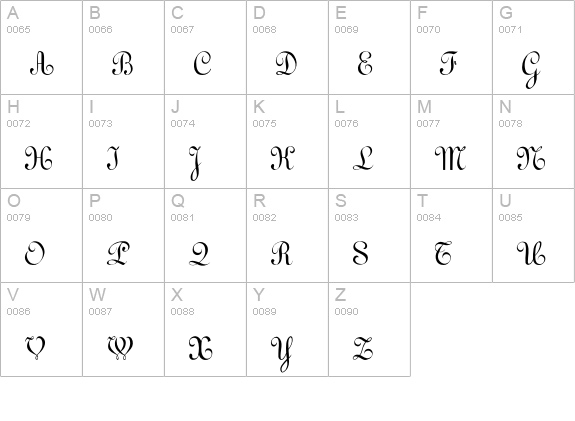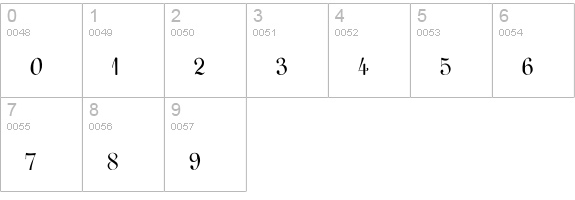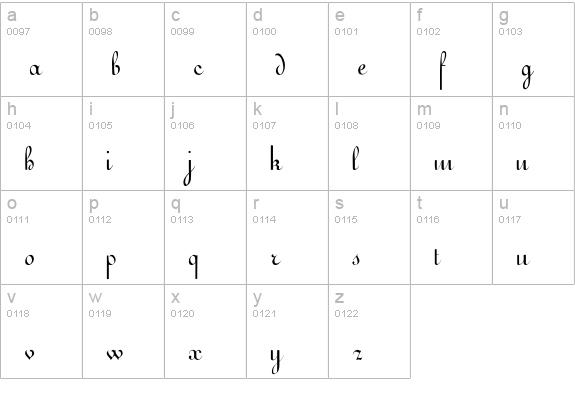
Gessele-Script Font Details
Gessele-Script is a beautifully crafted font that exudes elegance and sophistication. With its delicate curves and flowing lines, this script font is perfect for adding a touch of charm to any project. Whether you're designing invitations, logos, or branding materials, Gessele-Script is sure to make a lasting impression. The best part? Gessele-Script is completely free to download at FontsMarket.com. This means you can easily access this stunning font without breaking the bank. So why wait? Elevate your designs with Gessele-Script today and bring a touch of class to your next project.